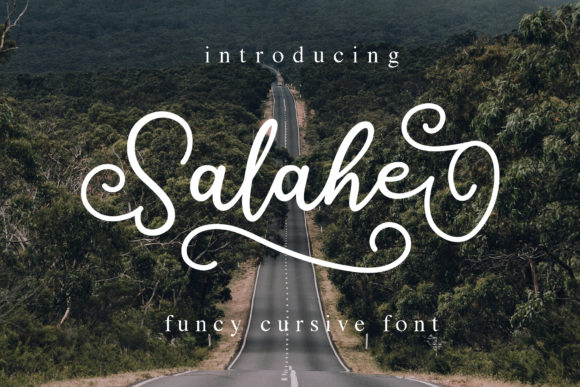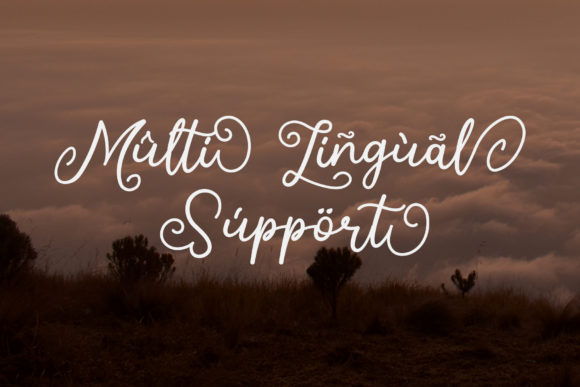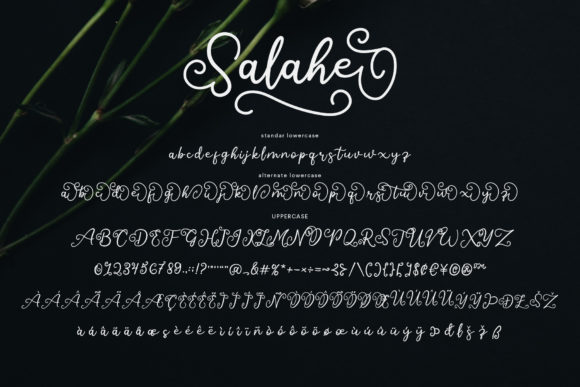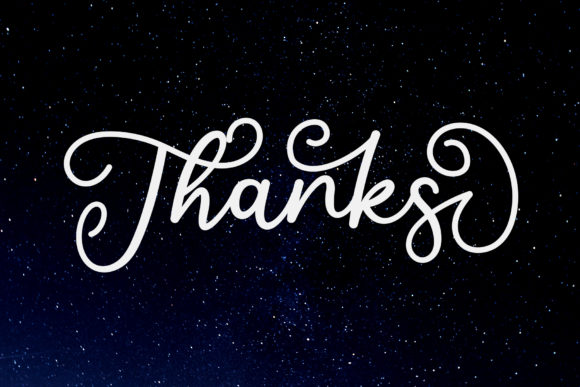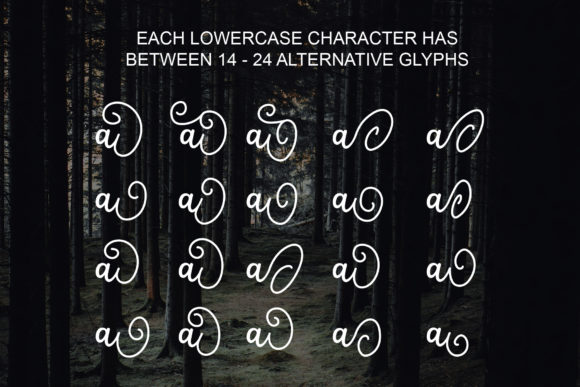
About Salahe Font
Introducing “The Salahe,” a fancy cursive font with a clear and sweet style, designed to add a touch of elegance to your projects. This font is not just a typeface; it’s a handwritten design asset that brings a sophisticated and distinctive flair. “The Salahe” is versatile and well-suited for designing envelopes, logos, typography, branding, greeting cards, printed quotes, invitations, cards, product packaging, headers, logotypes, letterheads, posters, clothing designs, labels, and more.
The clear and sweet style of “The Salahe” gives it a distinctive charm, making it perfect for a wide range of creative applications. Its fancy cursive script adds an element of sophistication and elegance to your designs, enhancing the visual appeal.
Whether you’re working on branding materials, printed quotes, or invitations, “The Salahe” adapts seamlessly to different design contexts. Envelopes and letterheads benefit from the font’s handwritten charm, creating a personal and refined touch. Logos and branding materials crafted with “The Salahe” convey elegance and a unique identity.
Greeting cards and product packaging designed with this font carry a sweet and clear aesthetic, making them visually appealing and memorable. The versatility of “The Salahe” extends to headers, posters, clothing designs, labels, and more, offering a stylish and distinctive choice for a variety of creative projects.
In summary, “The Salahe” is more than just a font; it’s a design companion that brings a fancy cursive style to your creative endeavors. Embrace its clear and sweet look for a wide range of applications, and let “The Salahe” elevate your designs with sophistication and distinctive charm.